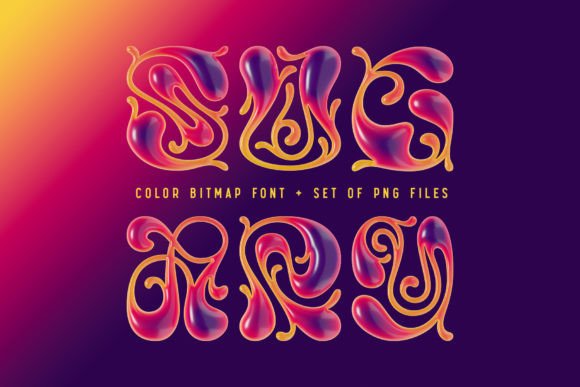
Unleash the Sweetness of Sugary Font: A Font Symphony for Vintage Designs
In a world of digital expression, where words dance across screens and pixels tell tales, fonts hold the power to evoke emotions, set the tone, and create captivating visual experiences. Meet Sugary Font, a vibrant and delectable font set that will tantalize your senses and add a touch of vintage charm to your creative projects.
Sugary Font is the brainchild of Gleb Guralnyk, a font maestro who has carefully crafted this 3D rendered typeface to perfection. Each letter is a work of art, boasting smooth, curly shapes and a captivating glossy effect that brings your words to life. With its wide spectrum of applications, from greeting cards to captivating headlines, Sugary Font is the perfect choice for adding a distinctive touch to any project.
Embark on a Typographic Journey with Sugary Font
Step into a world of vintage elegance with Sugary Font, a font set that exudes a timeless charm. Its meticulously crafted letters, reminiscent of yesteryear's aesthetics, will transport you to an era of nostalgia and romance. Whether you're designing wedding invitations, creating posters for vintage-themed events, or crafting social media posts with a retro vibe, Sugary Font is your perfect companion.
With its playful and inviting nature, Sugary Font is also an excellent choice for children's books, greeting cards, and playful branding designs. Let your imagination soar as you explore the endless possibilities that this font set offers.
A Versatile Font Set for Limitless Creativity
Sugary Font isn't just a pretty face; it's a versatile workhorse that can adapt to a wide range of design projects. Whether you're a seasoned graphic designer or a creative entrepreneur just starting out, Sugary Font is the perfect addition to your typographic toolbox. Use it to create eye-catching logos, design packaging that pops off the shelves, or craft social media graphics that captivate your audience.
With Sugary Font, the creative possibilities are endless. Let your imagination run wild as you explore the many ways this font set can enhance your designs.